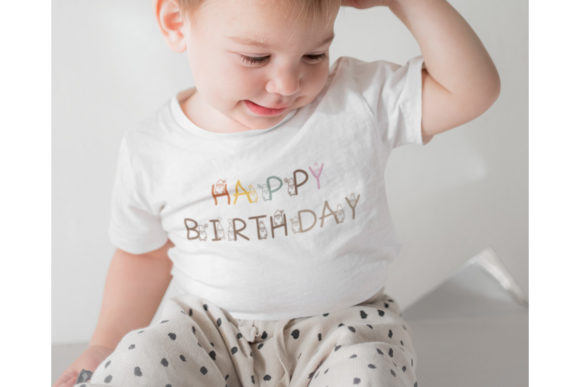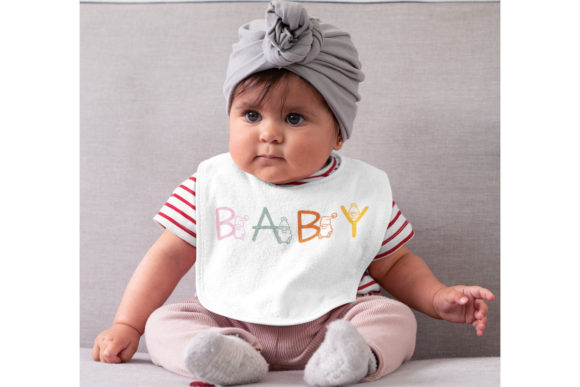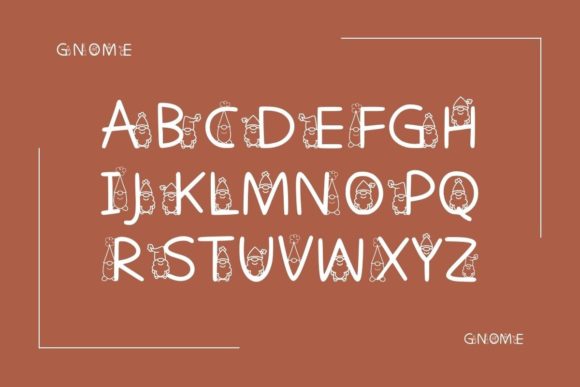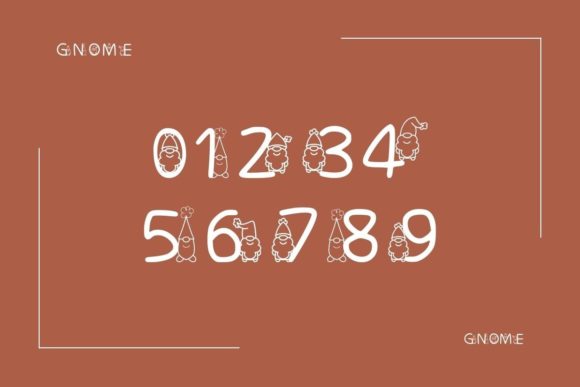
Meet the Mischief-Makers: Gnome Font
Do you ever find yourself brainstorming ideas for a design project, only to be struck by a spark of creativity that refuses to be ignored? For many designers, it’s that perfect moment when everything comes together – color, typography, and theme – to create something truly magical. For us, it was the whimsical world of gnomes that sparked our latest obsession: Gnome Font.
This delightful decorative font is a masterclass in playfulness, featuring a tiny gnome companion for each and every letter. It’s the perfect addition to any children’s-themed design, and its charming personality is sure to bring a smile to the faces of both kids and adults alike. As a designer, you know that the right font can make all the difference in elevating your work from good to great – and Gnome Font is no exception.
- Unique Characteristics: The font features a unique blend of modern and traditional design elements, with a focus on readability and clarity.
Gnome Font Review
Gnome Font is an interesting and quirky addition to the world of typography. I appreciate its unique charm, ✨ which makes it perfect for adding a touch of whimsy to your design projects. The font’s playful nature is reminiscent of traditional folk art, and its irregularities give it a sense of character that’s hard to find in more generic fonts.
Some of the strengths of Gnome Font include:
- ✨ Unique and quirky design that adds character to text
- ✨ Suitable for projects that require a folk-art or handmade feel
- ✨ Can be used to create eye-catching headlines and titles
However, there are also some limitations to consider:
- ⚠️ Limited legibility in smaller font sizes
- ⚠️ May not be suitable for body text or large blocks of text
- ⚠️ Can be overwhelming if used too extensively
Overall, Gnome Font is a fun and creative option that can add a unique touch to your designs. While it may not be suitable for all projects, it’s definitely worth considering for those that require a playful and whimsical feel.
Some tips for getting the most out of Gnome Font include:
- Using it for titles and headings to add a touch of whimsy
- Pairing it with other fonts for a unique and playful look
- Experimenting with different font sizes and colors to create visual interest